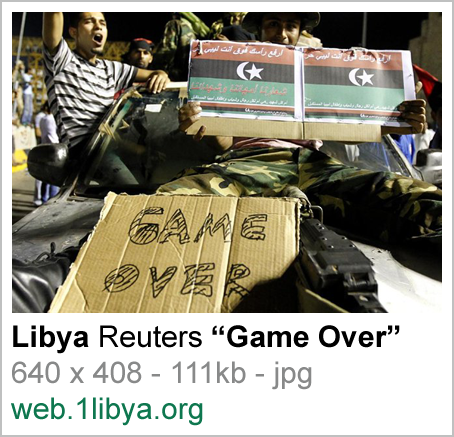
Font name: | DF Game Over |
Author: | Ko Sliggers |
Note by Ko Sliggers | |
A tribute to the (Arab) people who are fighting for a decent life. The picture tells the story |